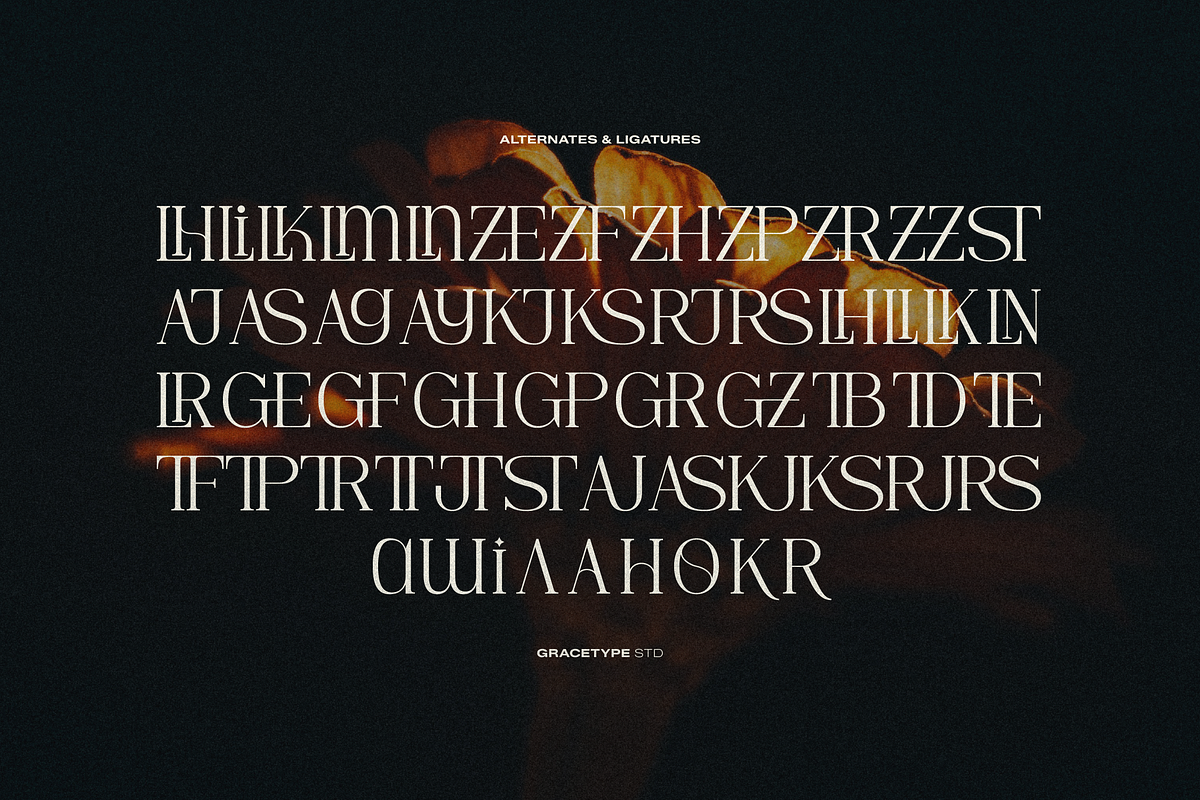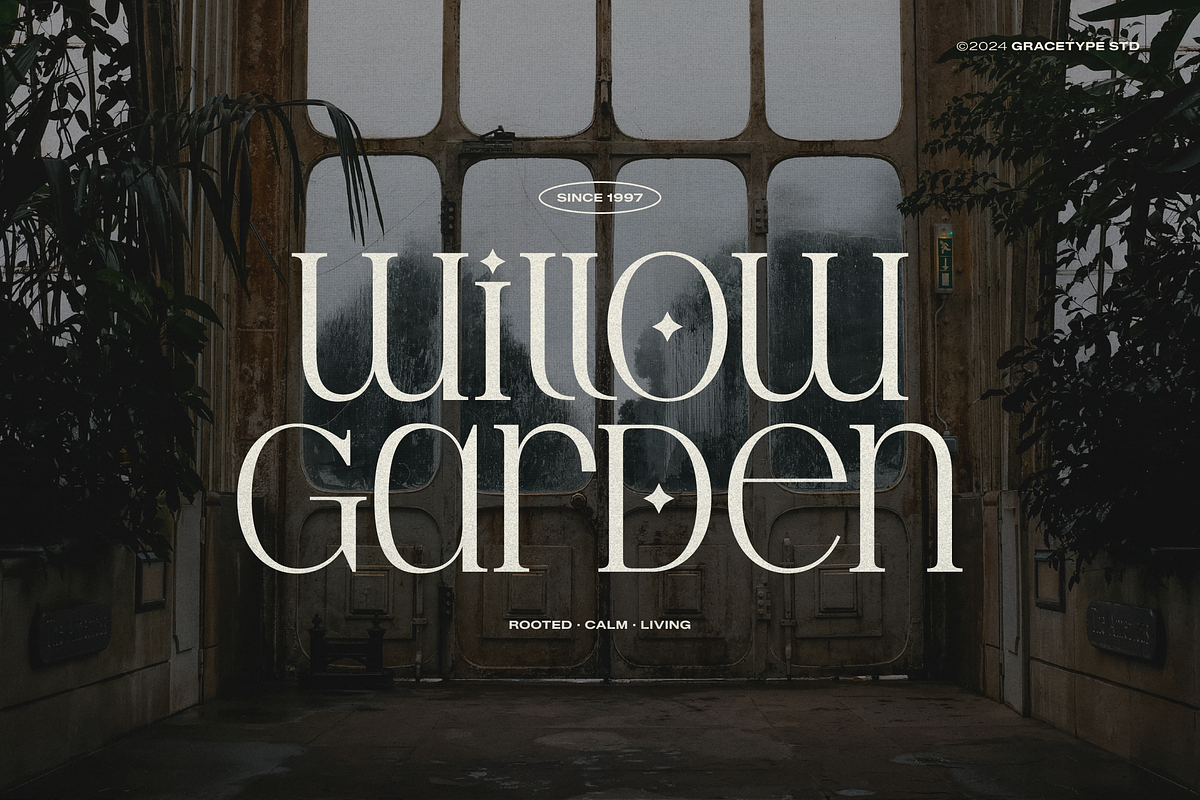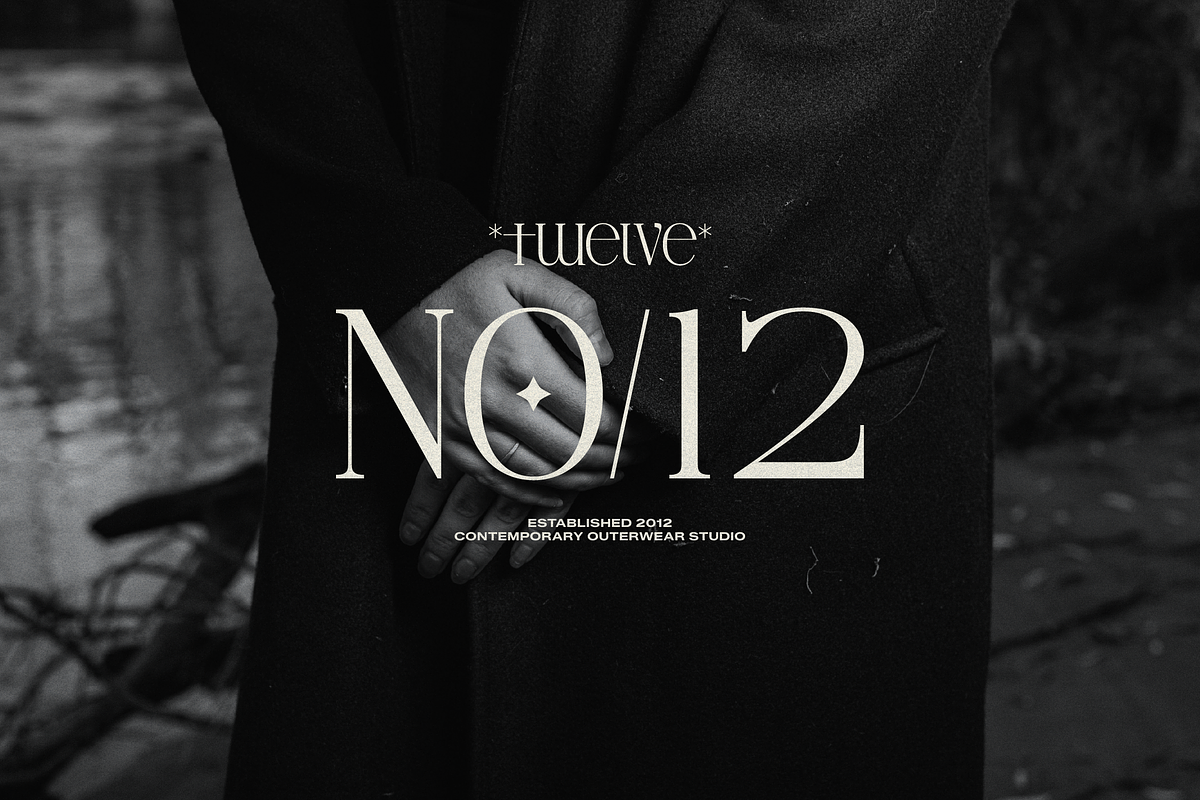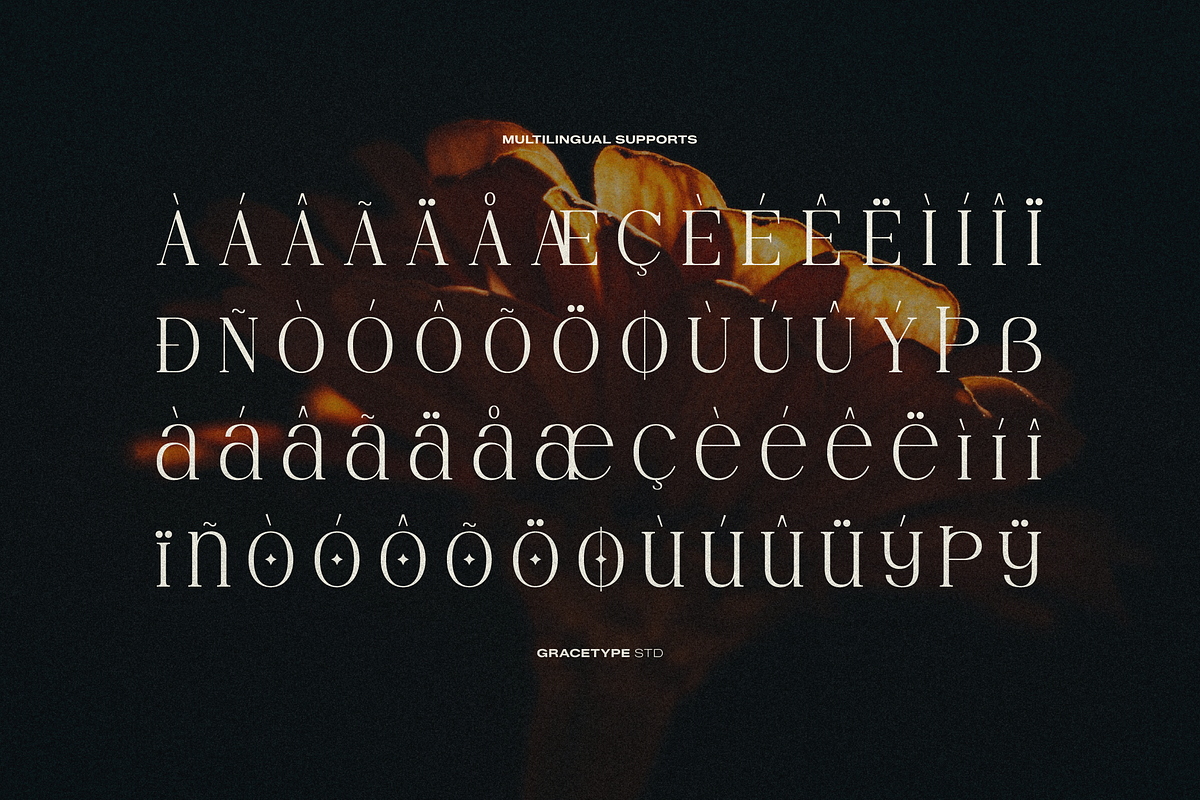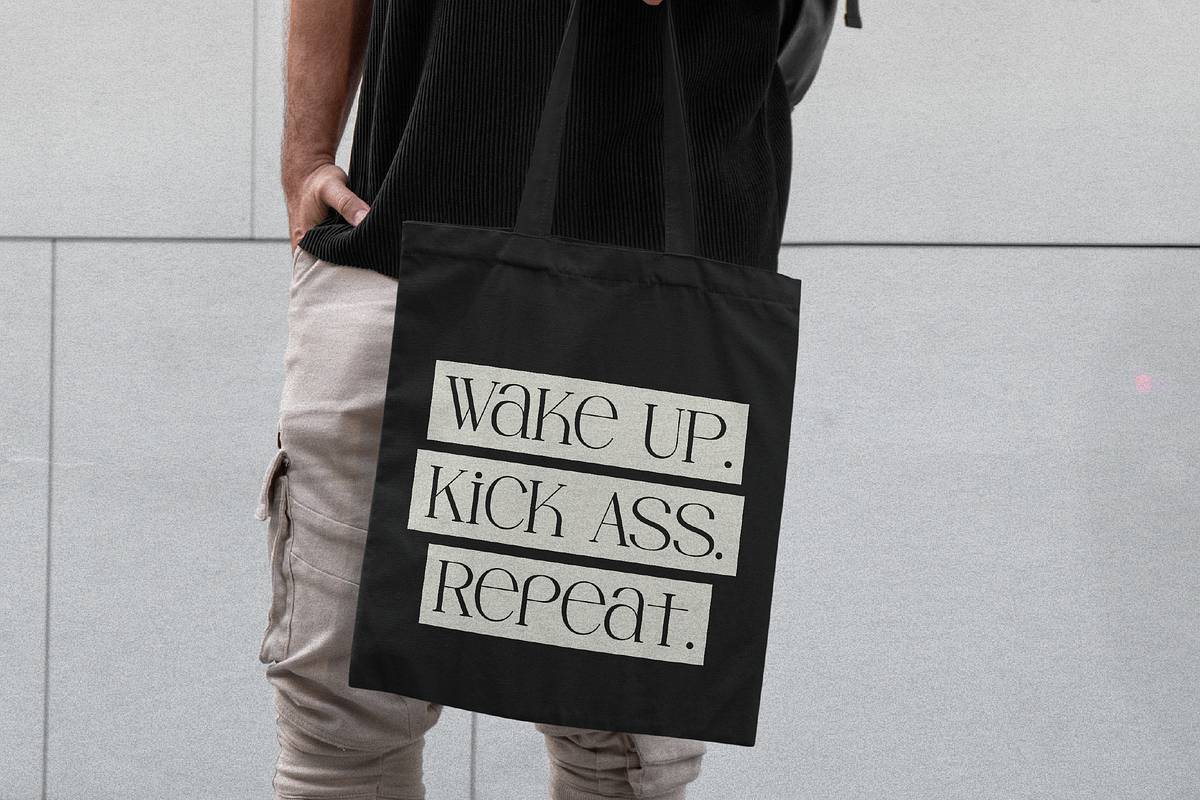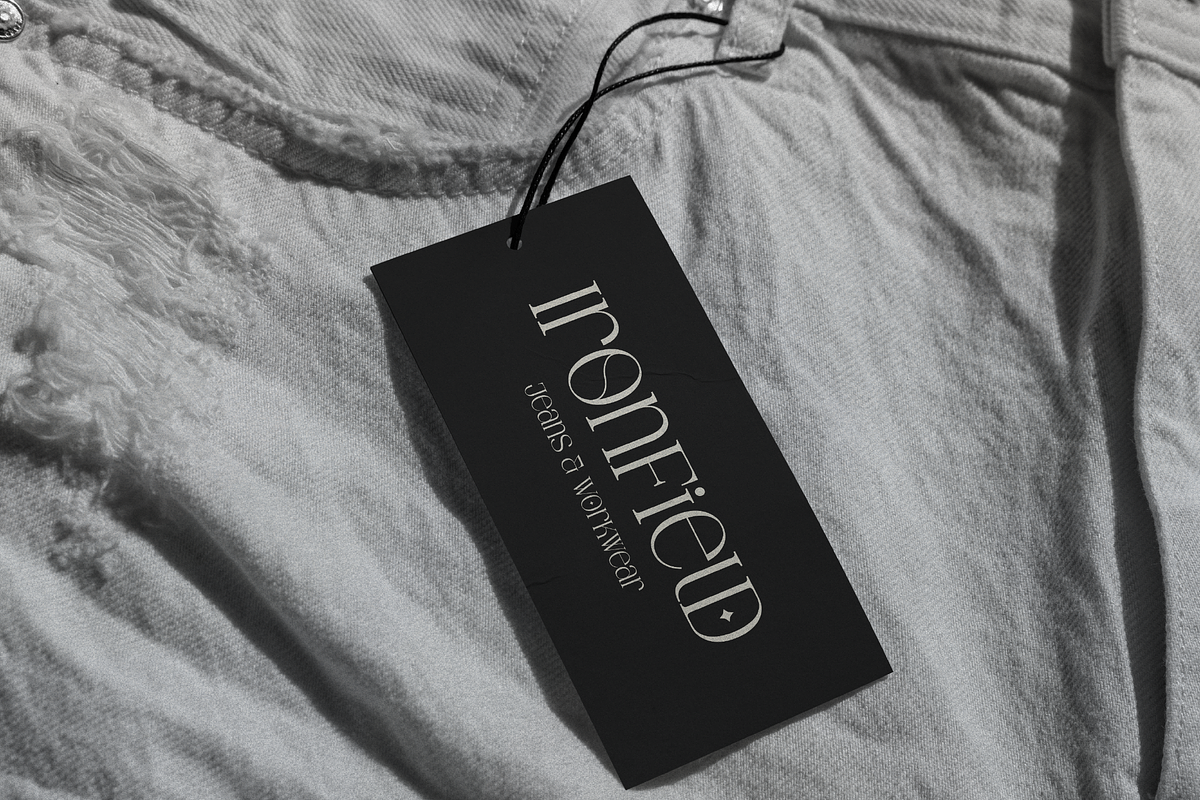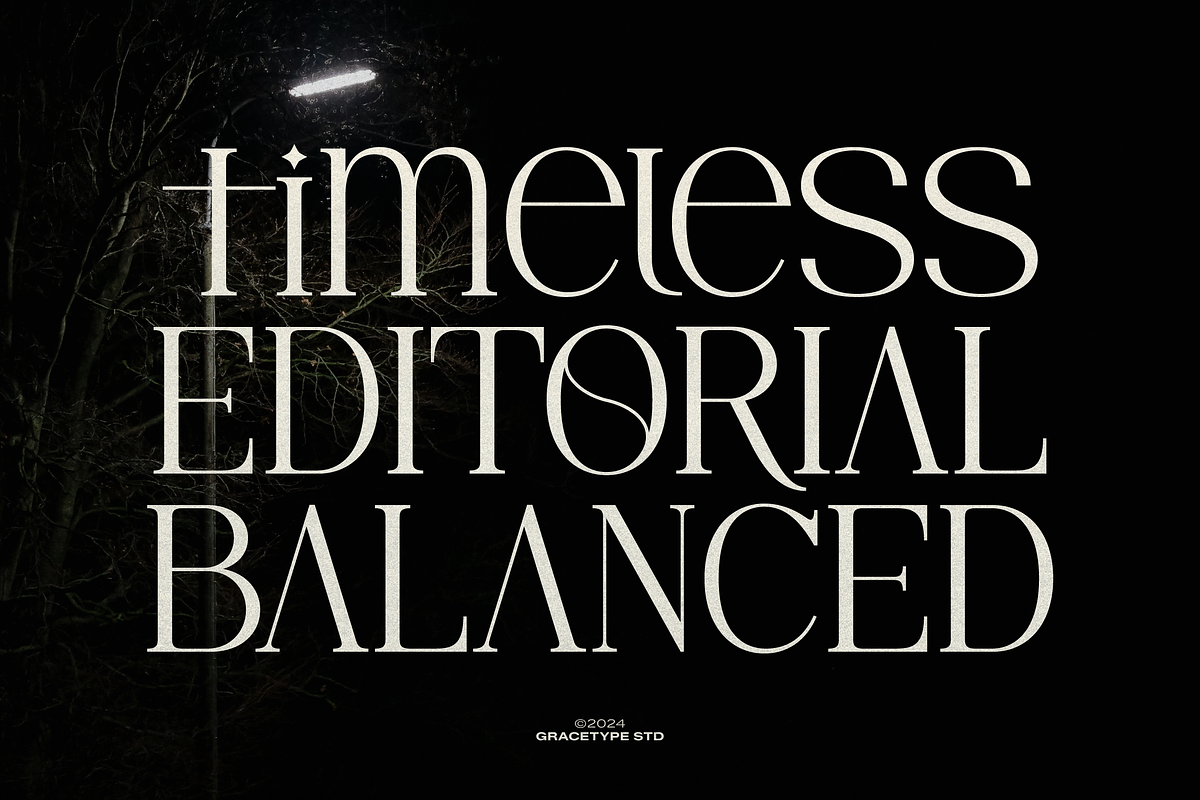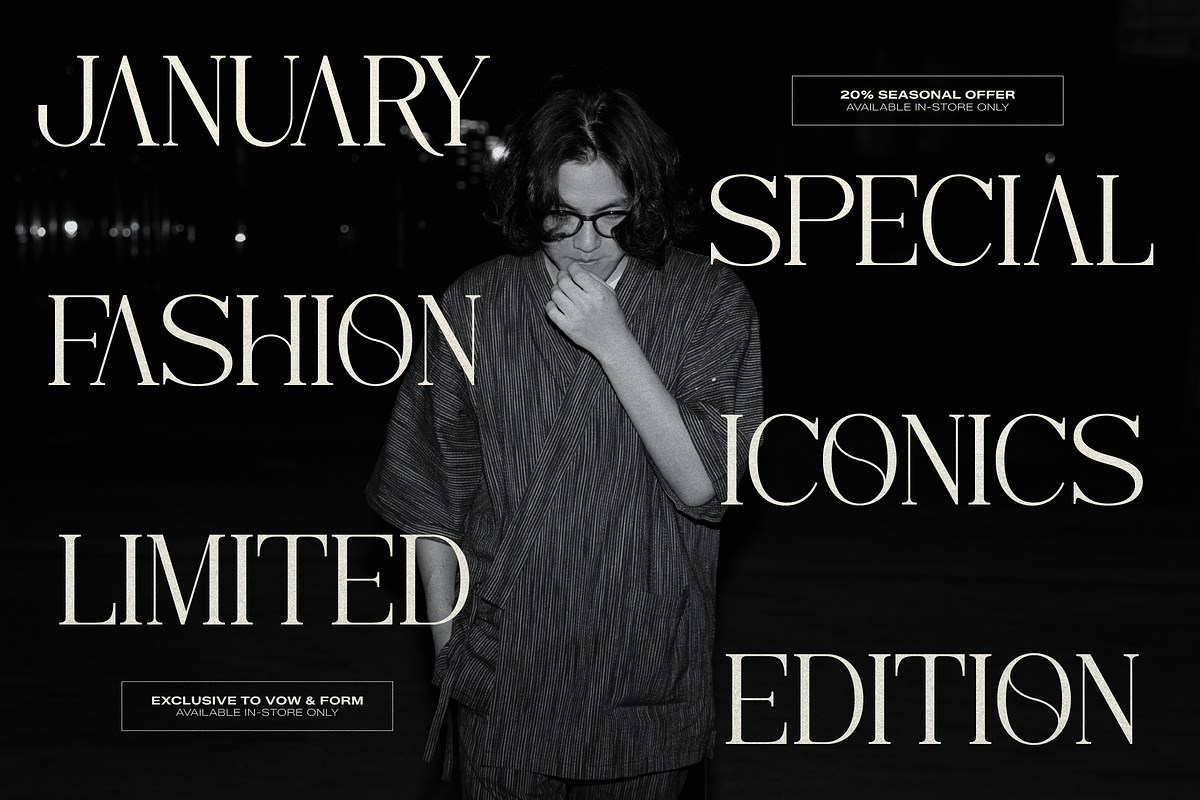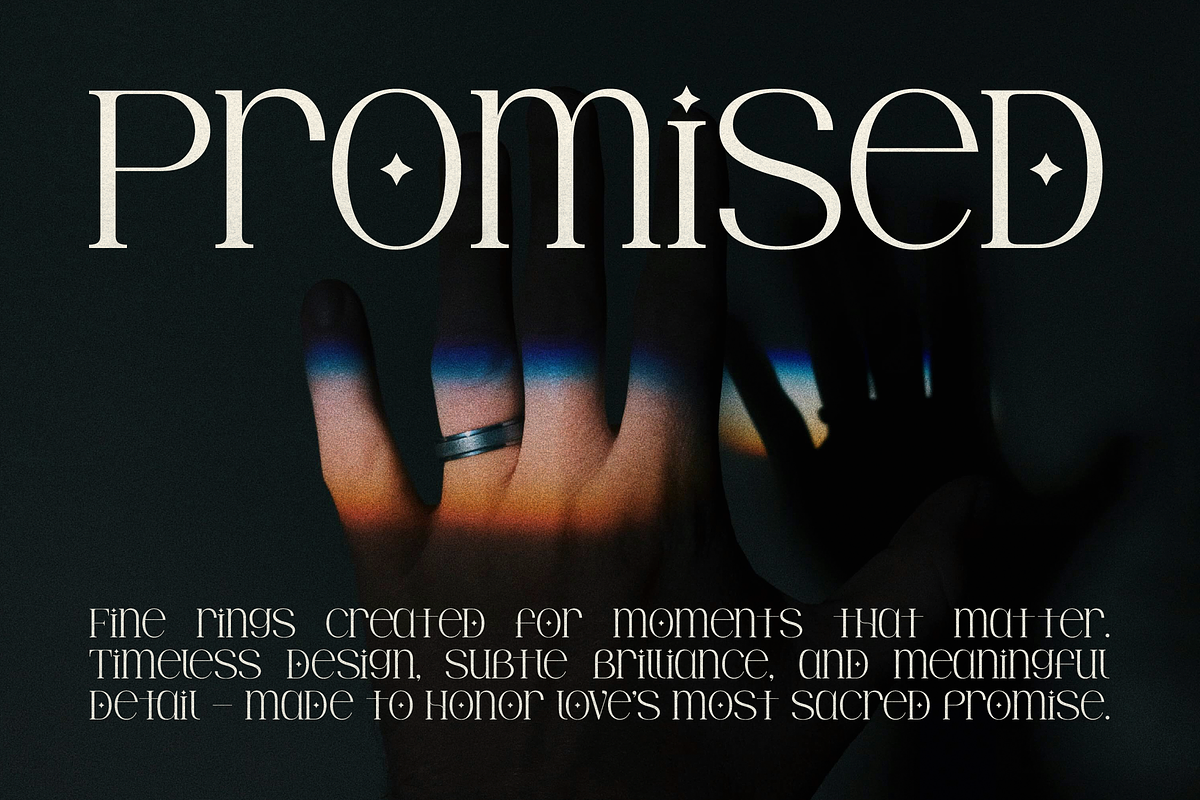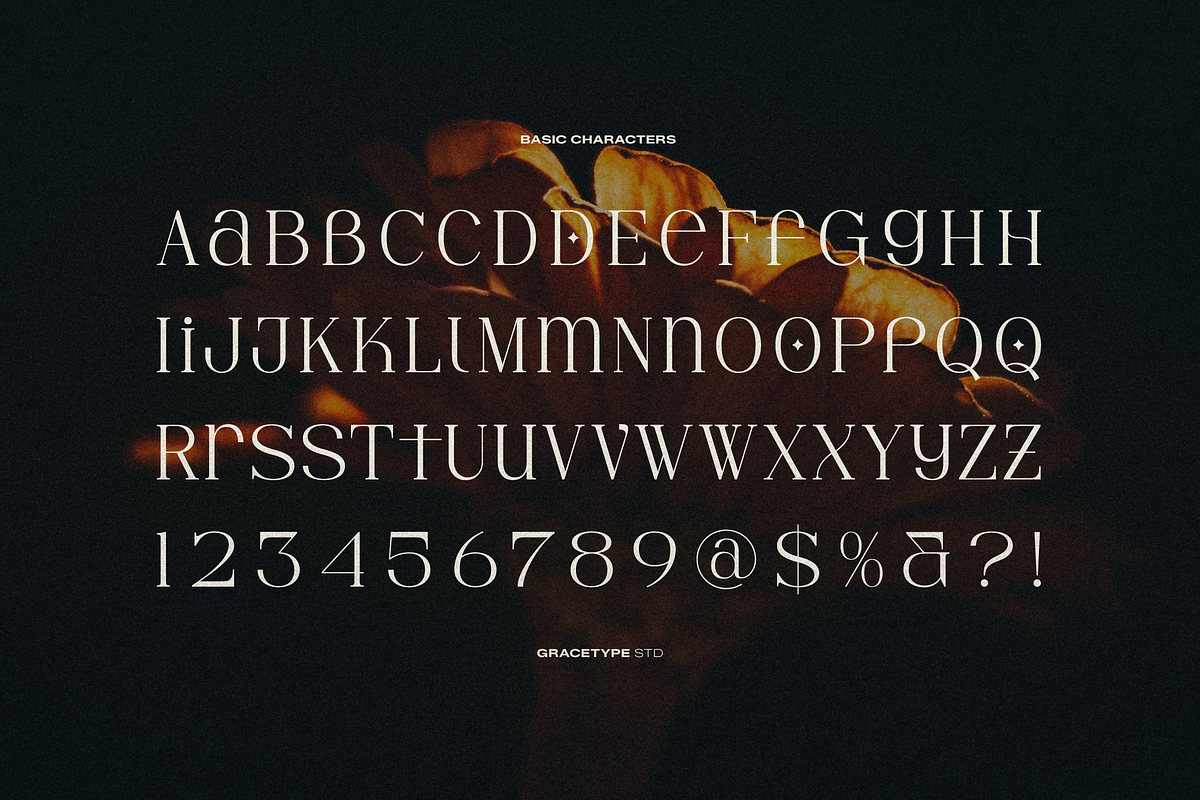
Hesay Verso | Display Classic Serif
Hesay Verso | Display Classic Serif, from Gracetypestudio, suitable for any projects such as: logos, branding projects, homeware designs, product packaging, mugs, quotes, posters, shopping bags, t-shirts, book covers, name card, invitation cards, greeting cards, label, photography, watermark, special events, and all your other lovely projects that need a Serif taste.